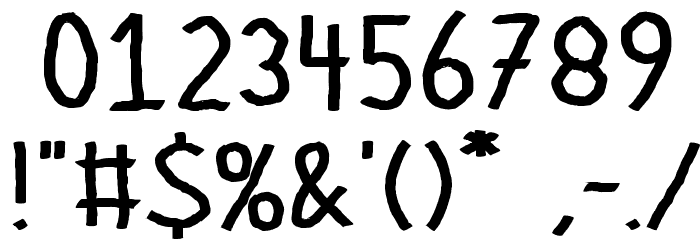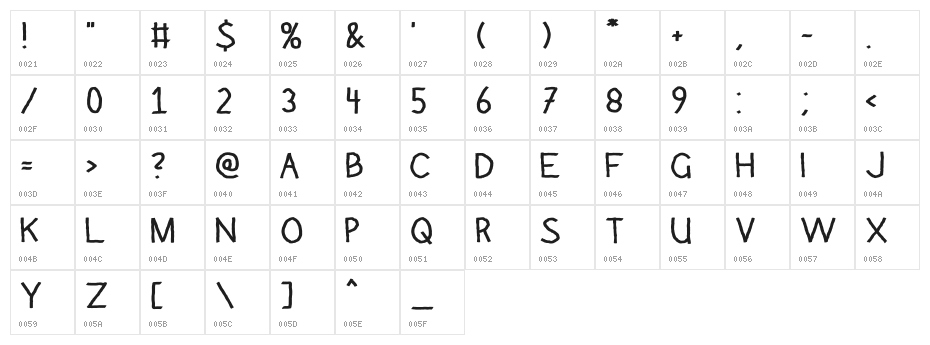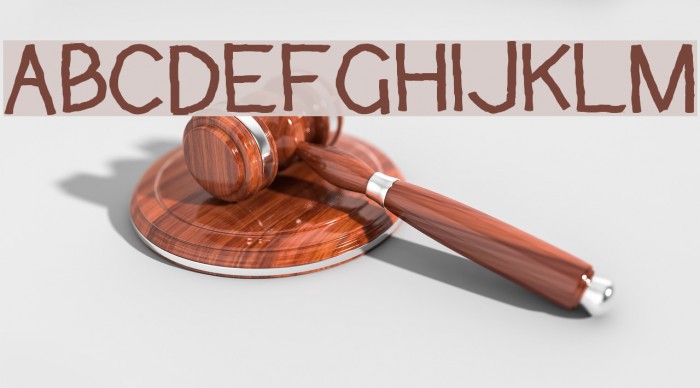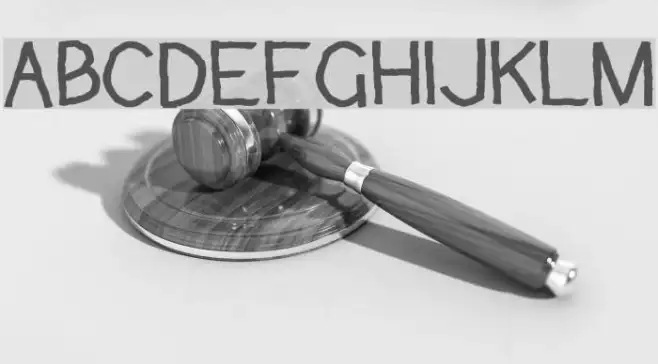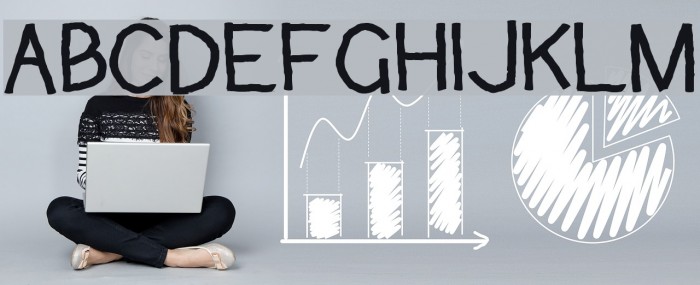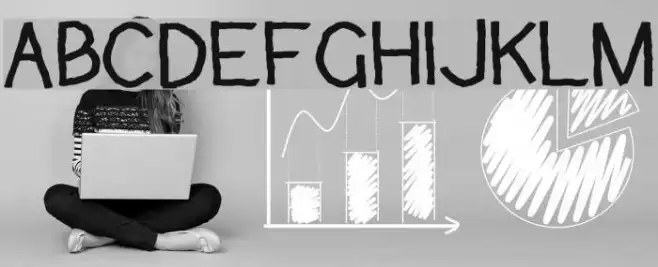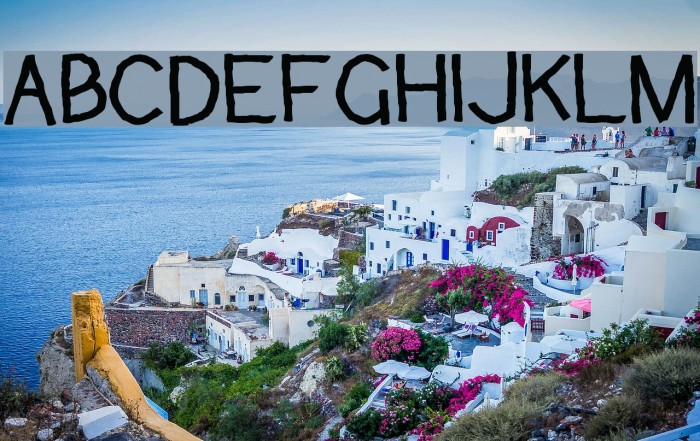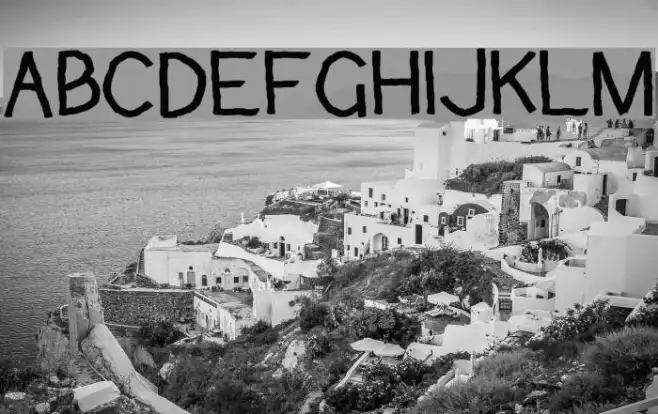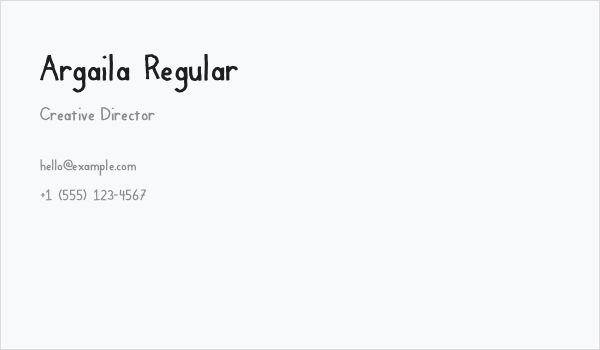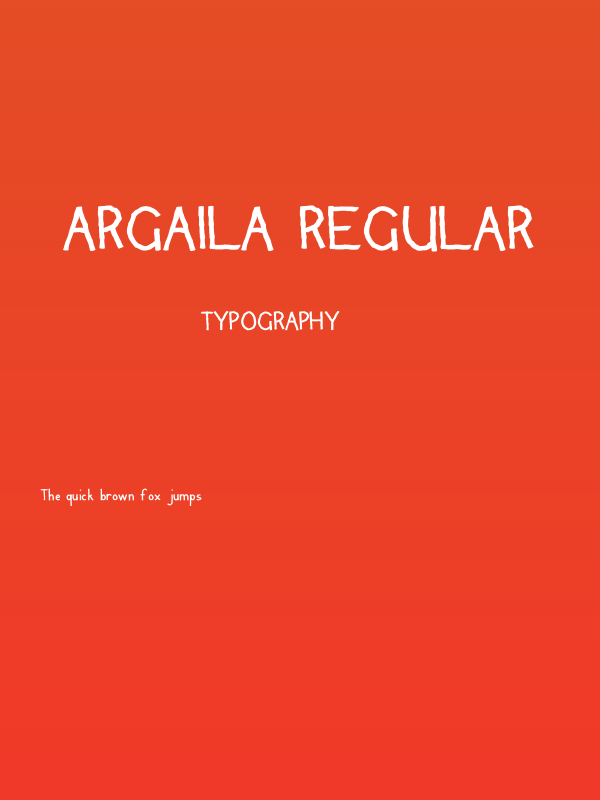
Argaila Regular Font
Argaila Regular Description
This font features a playful and informal style with a hand-drawn appearance. The characters are slightly irregular, giving it a whimsical and approachable feel. The uppercase and lowercase letters maintain a consistent height, while the numerals and special characters blend seamlessly with the overall design. The strokes are uneven, adding to the casual aesthetic, yet they remain legible and clear. This font is ideal for projects that require a personal touch or a creative flair, such as children's books, greeting cards, or artistic posters.